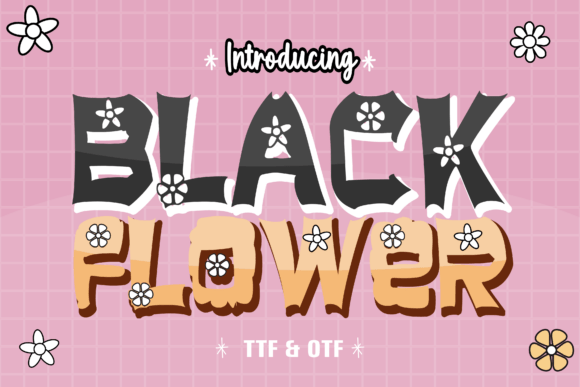
The Enchanting Black Flower Font: A Designer’s New Best Friend
I still remember the day I stumbled upon the perfect font for a client’s project. I was working on a whimsical floral design for a boutique’s branding, and no matter how hard I searched, I couldn’t find a font that captured the essence of elegance and playfulness. That was until I discovered the Black Flower font. It’s a classic font that exudes a mysterious floral charm, making it perfect for a variety of creative design projects.
- ✨ The sharpness and friendly colors of the Black Flower font make it a versatile choice for any design.
- ✅ The font’s unique floral charm adds a touch of elegance and sophistication to any project.
- 💫 It’s perfect for designing cheerful T-shirts, adorable tote bags, cute mugs, fun stickers, invitations, logos, engaging social media content, vibrant posters, eye-catching wall art, and more.
While the Black Flower font is a stunning addition to any design, there are a few things to keep in mind:
- ⚠️ Some characters may appear a bit condensed, so be mindful of spacing when using it for longer texts.
- 🤔 The font’s intricate details may not render well at very small sizes, so it’s best used at larger sizes or for headlines.
- Explore the font’s stylistic alternates and swashes to add more personality to your design.
- Use the font for headings, titles, and other display text to add a touch of elegance.
The Story Behind Black Flower Font
The Black Flower font was designed by a talented typographer who drew inspiration from traditional floral patterns and botanical illustrations. The font’s intricate details and elegant curves make it a timeless choice for designers and crafters alike.
Q: What type of projects is the Black Flower font best suited for?
A: The Black Flower font is perfect for a variety of creative design projects, including T-shirts, tote bags, mugs, stickers, invitations, logos, social media content, posters, and more.
Q: Is the Black Flower font available in different styles or weights?
A: Currently, the Black Flower font is available in a single style. However, some font packages may include variations or stylistic alternates to add more versatility.